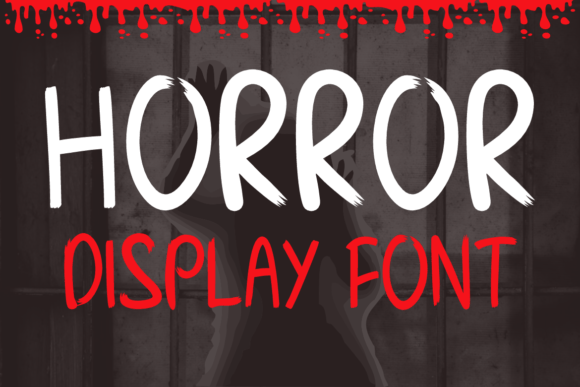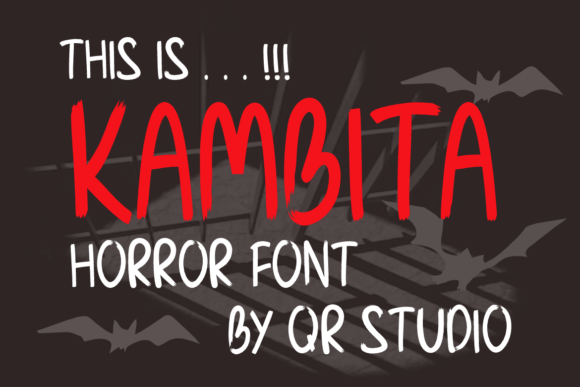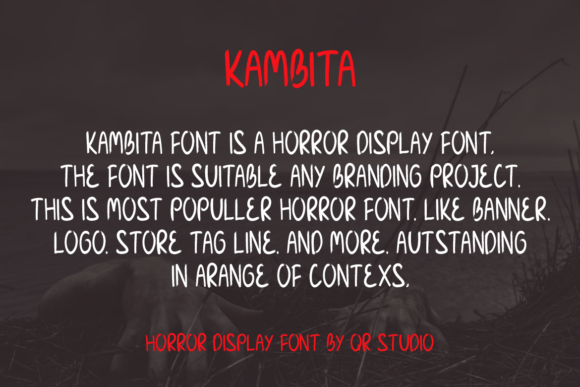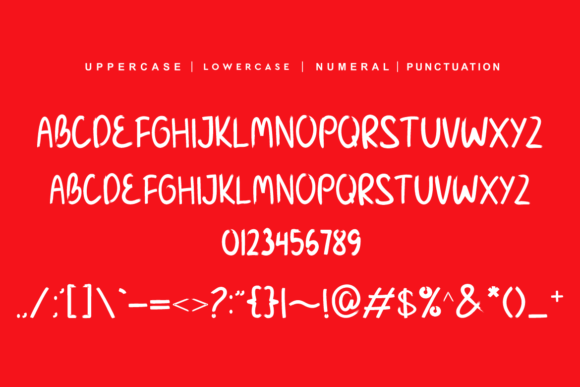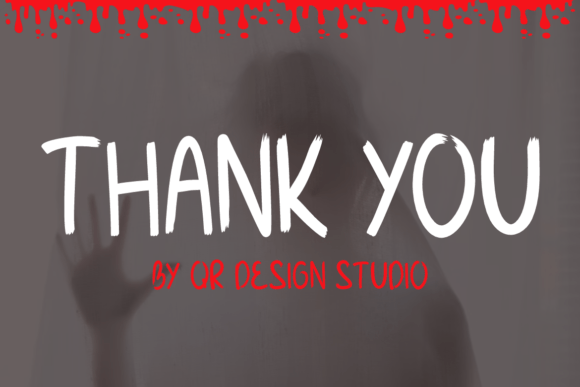
The Birth of a Bold New Era in Typography
Imagine you’re brainstorming ideas for your next big project – a movie title, a logo for a new startup, or a poster for a music festival. You’re sifting through font options, trying to find that perfect blend of style and substance. Suddenly, it hits you – the perfect font to elevate your design and leave a lasting impression.
That perfect font is often elusive, but we’re excited to introduce you to Kambita Font, a bold and authentic display font designed to take your designs to the next level. Suitable for a wide range of applications, from logos to web design, Kambita Font is the ultimate game-changer for designers looking to add a touch of sophistication and elegance to their work.
Whether you’re a seasoned pro or just starting out, Kambita Font is an invaluable addition to your design toolkit. Its unique blend of style and versatility makes it an essential resource for anyone looking to create truly memorable designs.
Kambita Font Key Features
- Unique Characteristics: Kambita Font features a unique blend of modern and traditional design elements, making it suitable for various design projects, from corporate branding to creative art.
Kambita Font Review
I recently had the chance to work with the Kambita Font, and I have to say, it’s a mixed bag for me. Let’s start with the good stuff ✨.
- The Kambita Font has a unique and exotic feel to it, which is perfect for projects that require a touch of international flair.
- The font is well-suited for use in headings and titles, where its bold and striking features can really shine.
- The font’s OpenType features allow for some really cool ligatures and swashes, which can add a lot of personality to your designs.
However, there are a few limitations to keep in mind ⚠️.
- The font’s regular weight can feel a bit too light and wispy for body text, which may not be ideal for longer blocks of text.
- The font’s italic and bold-italic weights may not be as well-suited for use in body text, and may require some extra styling to make them work.
- The font’s character set may not include some of the more obscure or specialty characters that you may need for certain projects.
Overall, I think the Kambita Font is a great choice for projects that require a bold and exotic feel, but may not be the best choice for projects that require a more straightforward or neutral font.
Kambita Font is commonly used in:
- Designing invitations and event materials.
- Creating branding and marketing materials.